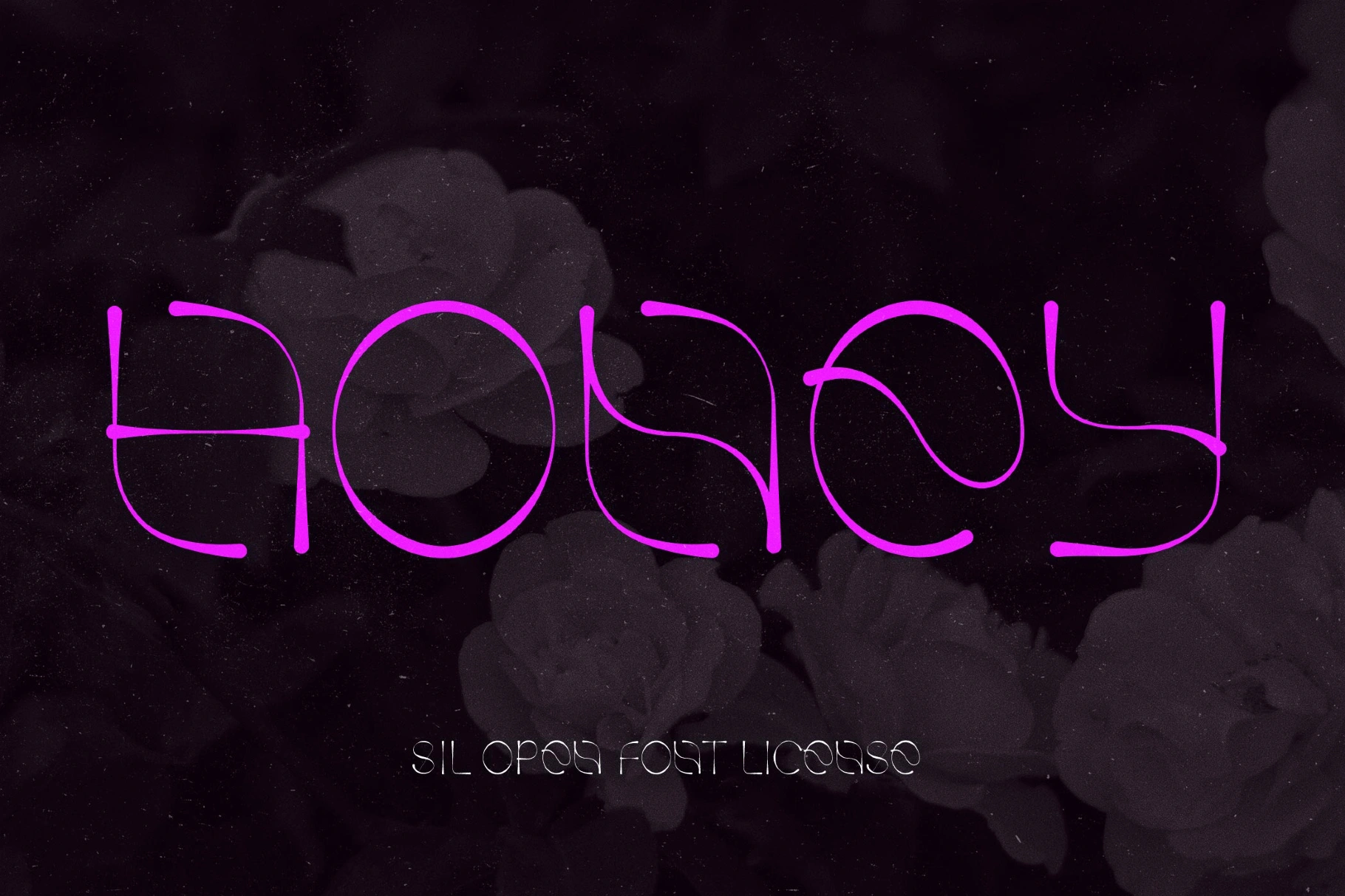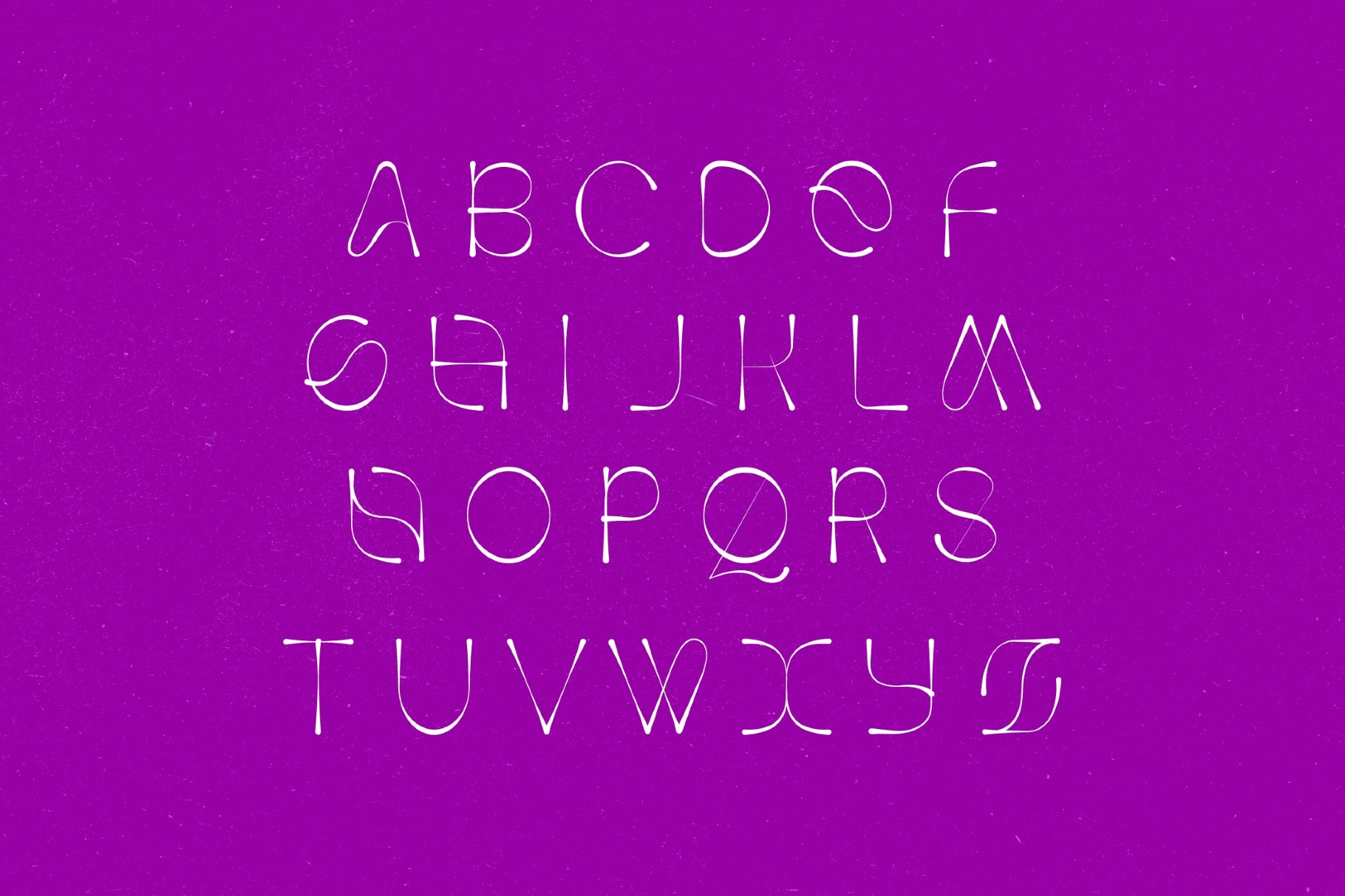
Honey Font
Honey is an all-caps display font with a floral silhouette that recalls Art Nouveau ornament, pressed botanical illustrations, and the opening curl of honeysuckle petals. This summer type works beautifully for seasonal logo design, packaging, poster titles, editorial covers, invitation pieces, boutique branding and social graphics.